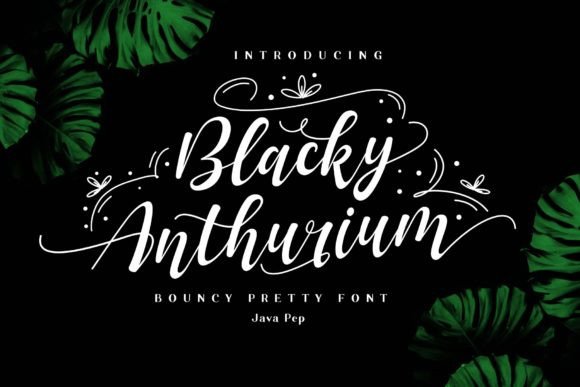
Blacky Anthurium Font for Handmade Branding
The morning light hits my desk just as I open the file for Blacky Anthurium, ready to finalize a batch of candle labels that need to feel as warm and inviting as the scents inside the jars. As a creator who lives in the world of Script Handwritten styles, finding the right Fonts is often the difference between a product that sits on the shelf and one that flies off it. This typeface immediately stands out because every strike of the shape brings the vibes of pretty and elegant, perfectly capturing the bouncy, organic energy I was looking for to elevate my shop's visual identity.
Creating Elegant Wedding Invitations with Blacky Anthurium
When working with couples who want their wedding stationery to feel personal yet polished, Blacky Anthurium becomes my go-to choice among Script Handwritten Fonts. The font's natural flow mimics the pressure variations of a real pen, making it ideal for names on save-the-dates, formal invitations, and reception signage. Because this bouncy pretty script called Blacky Anthurium carries such distinct character, it adds a layer of sophistication without feeling stiff or overly traditional. I recently used it for a rustic-chic wedding suite, pairing the main titles with a clean, lightweight sans serif font for the details, ensuring high readability while maintaining that romantic, hand-crafted aesthetic. The result was a cohesive brand identity for the event that felt both modern and timeless.
Designing Boutique Product Labels and Packaging
For handmade sellers, packaging is the first physical touchpoint a customer has with your brand, and Blacky Anthurium excels in this high-stakes environment within the realm of Script Handwritten Fonts. Whether you are printing adhesive labels for small-batch soaps, stamping tags for jewelry pouches, or designing boxes for artisanal chocolates, the elegance of this typeface signals quality before the box is even opened. The doodles and ornaments included with the font are particularly useful here; they allow me to create custom frames around product names or add delicate flourishes to seal stickers without needing extra graphic design software. By using these built-in assets, I can maintain a consistent look across different product lines, from holiday gift tags to everyday shipping labels, reinforcing brand recognition with every package sent out.
Using Blacky Anthurium for Printable Wall Art and Planners
In the digital download space, versatility is key, and Blacky Anthurium offers immense potential for creators selling Script Handwritten Fonts based products like printable wall art and planner pages. The bouncy nature of the letters works beautifully for inspirational quotes, kitchen conversion charts, or header text in daily planners where a friendly, approachable tone is desired. When designing these files, I often test the font at various sizes to ensure the intricate loops and swashes remain crisp when printed on home printers or by professional services. For larger wall art pieces, the font acts as the primary visual element, where its decorative qualities shine without competing with other graphics. This makes it a powerful tool for Etsy sellers looking to expand their catalog with items that feel bespoke and emotionally resonant.
Enhancing Tote Bags and Apparel with Script Typography
Moving from paper to fabric, applying Blacky Anthurium to tote bags and apparel requires a keen eye for spacing and contrast, especially when working with Script Handwritten Fonts. The thick and thin strokes of this bouncy pretty script translate well to heat transfer vinyl and screen printing, provided the design is simplified enough for the cutting machine to handle the finer details. I recommend using the solid versions of the characters for smaller applications like pocket logos on shirts, while reserving the full swash variants for large statement prints on canvas totes. The included ornaments can be separated and used as standalone icons, adding a unique flair to merchandise that sets it apart from generic store-bought items. This adaptability ensures that whether you are creating a limited run of festival tees or a permanent line of shop merch, the typography remains legible and impactful.
Maximizing Readability and Font Pairing Strategies
While Blacky Anthurium is undeniably stunning, knowing when and how to pair it with other Script Handwritten or complementary Fonts is crucial for effective communication. A common mistake in DIY design is using a decorative script for body text, which can strain the reader's eyes; instead, reserve this typeface for headlines, logos, and short phrases where its personality can take center stage. For longer descriptions on product cards or website banners, pair it with a neutral geometric sans serif or a classic serif font to create a balanced hierarchy. This contrast not only improves readability but also highlights the unique curves of Blacky Anthurium, making the overall design feel more professional and intentional. Additionally, always check the specific file formats and licensing terms included with your purchase to ensure you are covered for both personal projects and commercial sales of physical goods.
Leveraging Doodles and Ornaments for Unique Brand Assets
One of the most exciting features of proudly presenting a bouncy pretty script called Blacky Anthurium is the extensive collection of doodles and ornaments that come with it, expanding its utility beyond standard Script Handwritten Fonts. These extra elements allow makers to build a complete visual language without hiring an illustrator. You can use the floral accents to frame your logo, incorporate the swirls into watermarks for social media graphics, or scatter them across packaging tissue paper for an unboxing experience that feels luxurious. By consistently using these specific glyphs across your Instagram stories, product photos, and website headers, you create a recognizable style that customers begin to associate specifically with your shop. This level of detail transforms a simple font purchase into a comprehensive branding toolkit, empowering small business owners to compete with larger retailers through superior design execution.